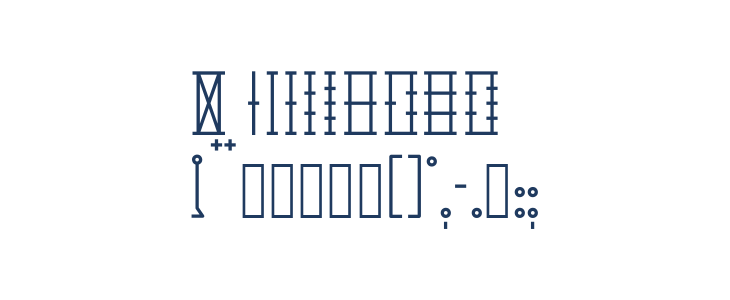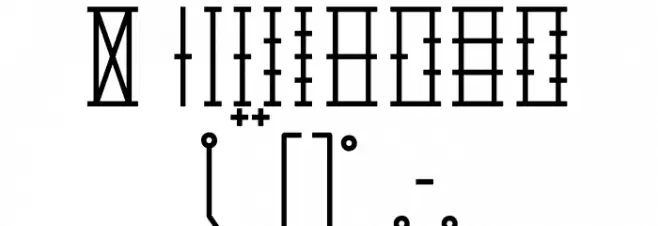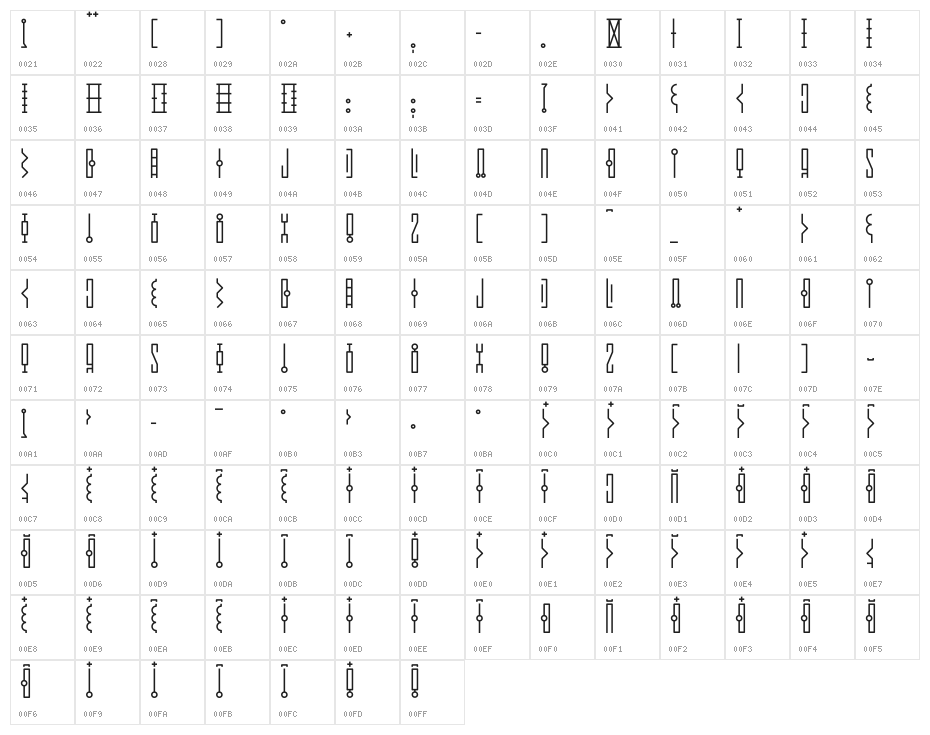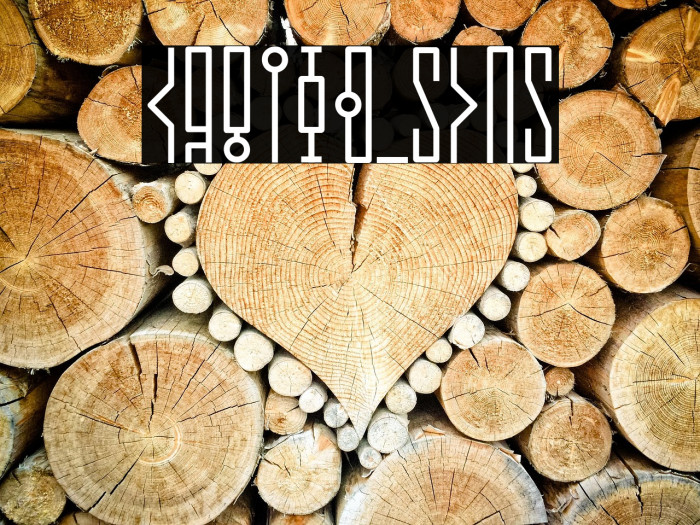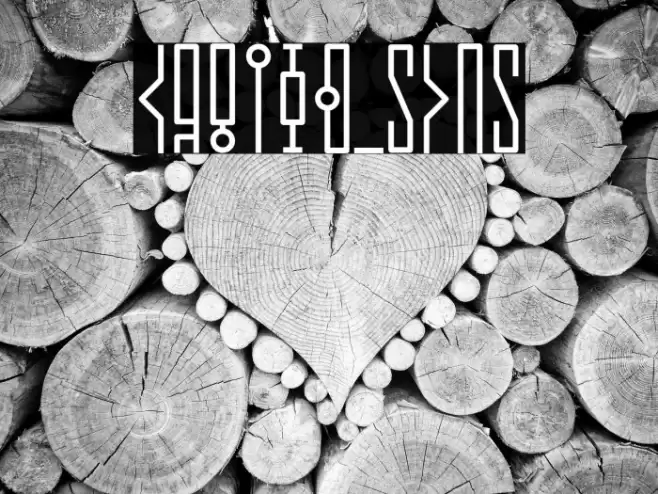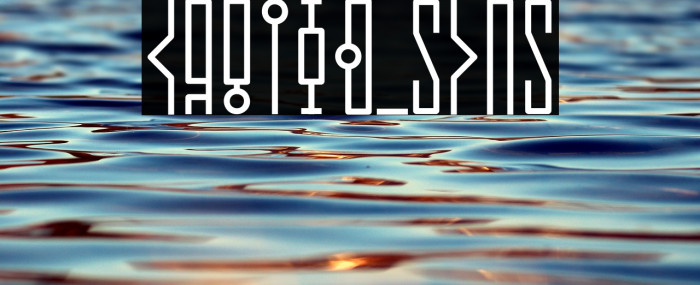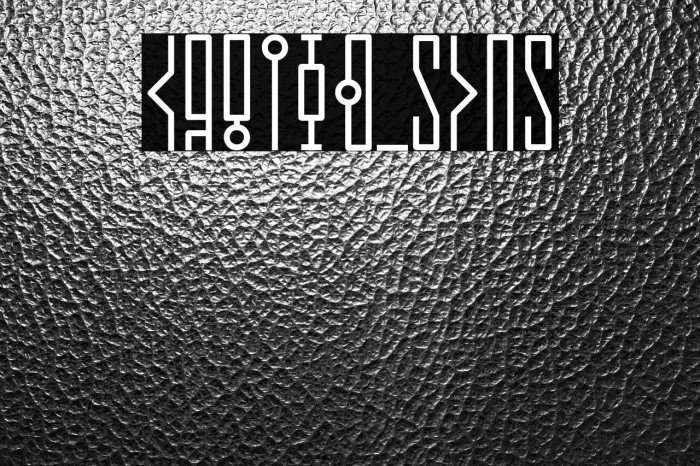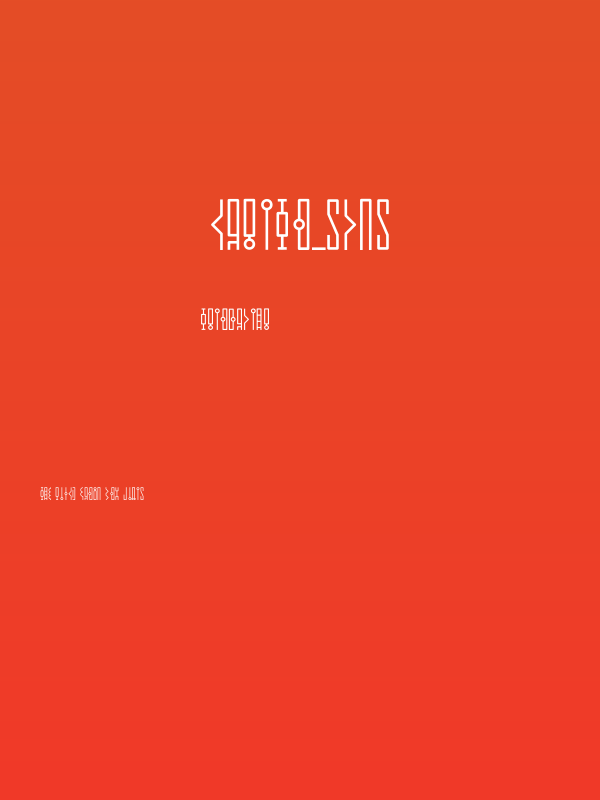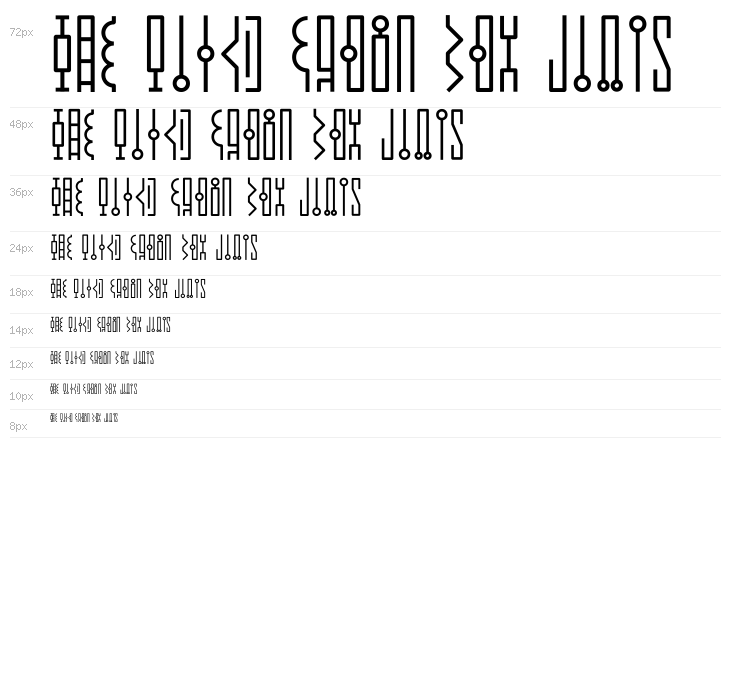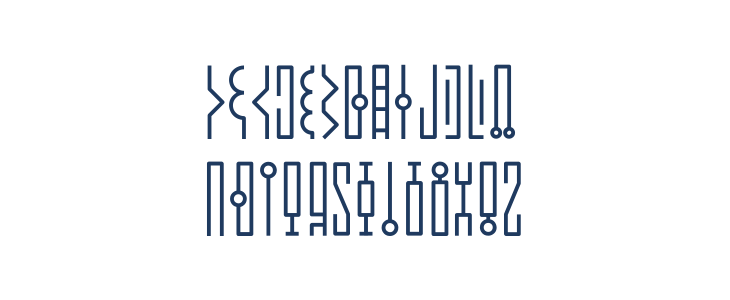
Crypto_Sans Font
Crypto_Sans Description
This font features a highly decorative and abstract style, characterized by geometric shapes and intricate patterns. Each character is designed with a unique combination of lines, circles, and angles, creating a futuristic and cryptic appearance. The letters and numbers are constructed with a consistent stroke width, giving the font a uniform look despite its complex design. The special characters are equally elaborate, incorporating similar geometric elements. This font is not intended for readability but rather for artistic and thematic purposes, making it suitable for projects that require a mysterious or avant-garde aesthetic.
| Overall Style | Futuristic, Cryptic |
| Use Case | Logos, Artistic Posters, Thematic Designs |
| Proposed Projects | Ideal for sci-fi themed designs, artistic posters, or branding that requires a unique and mysterious look. |